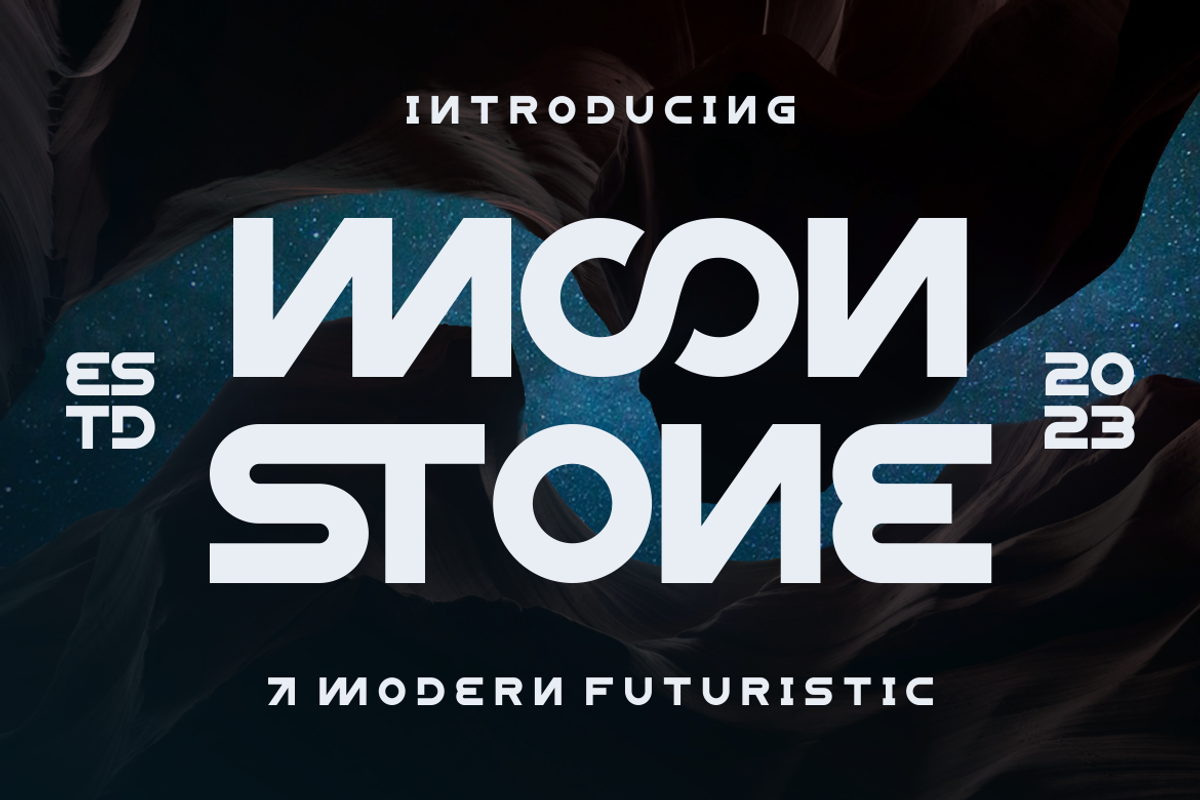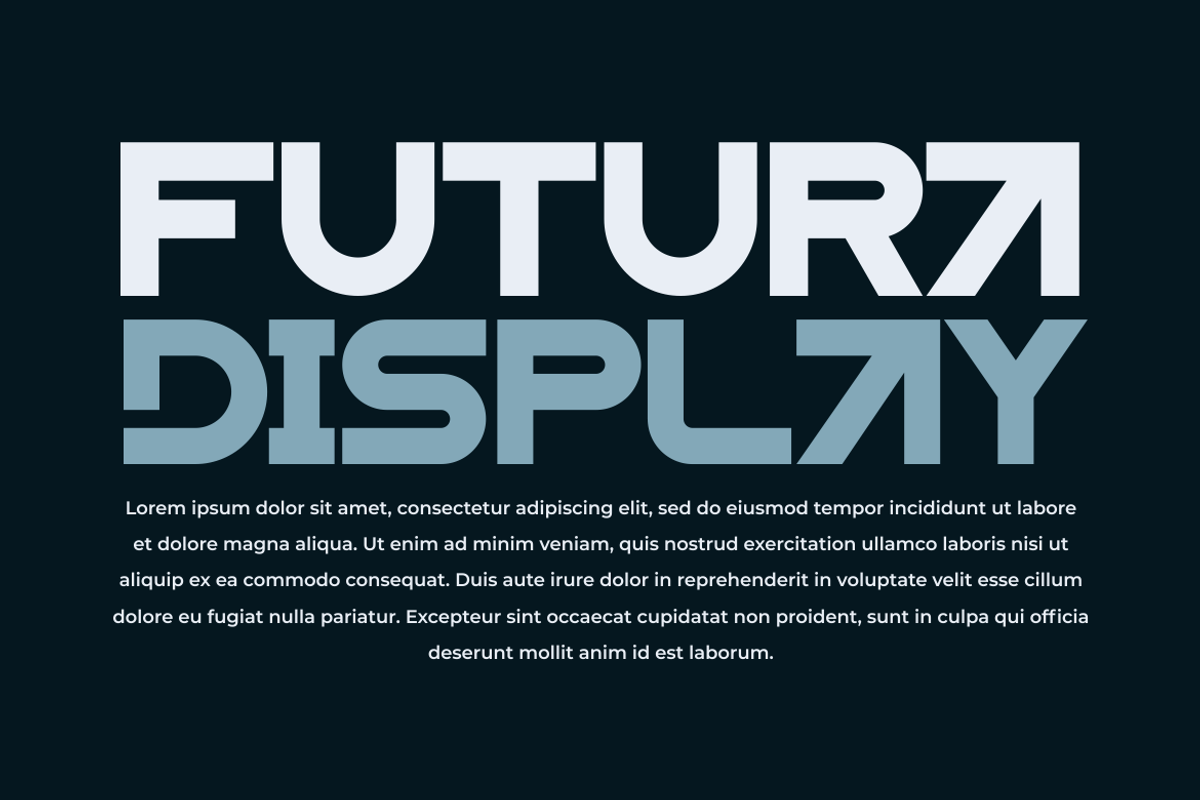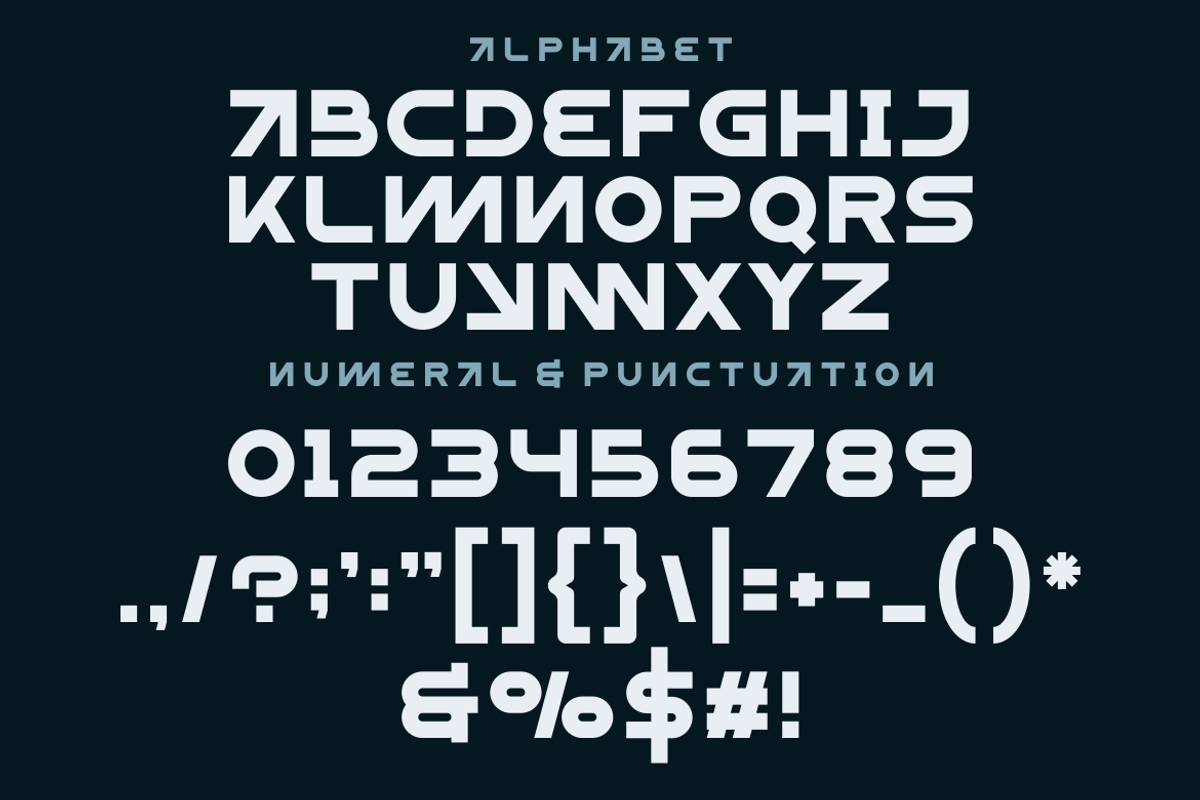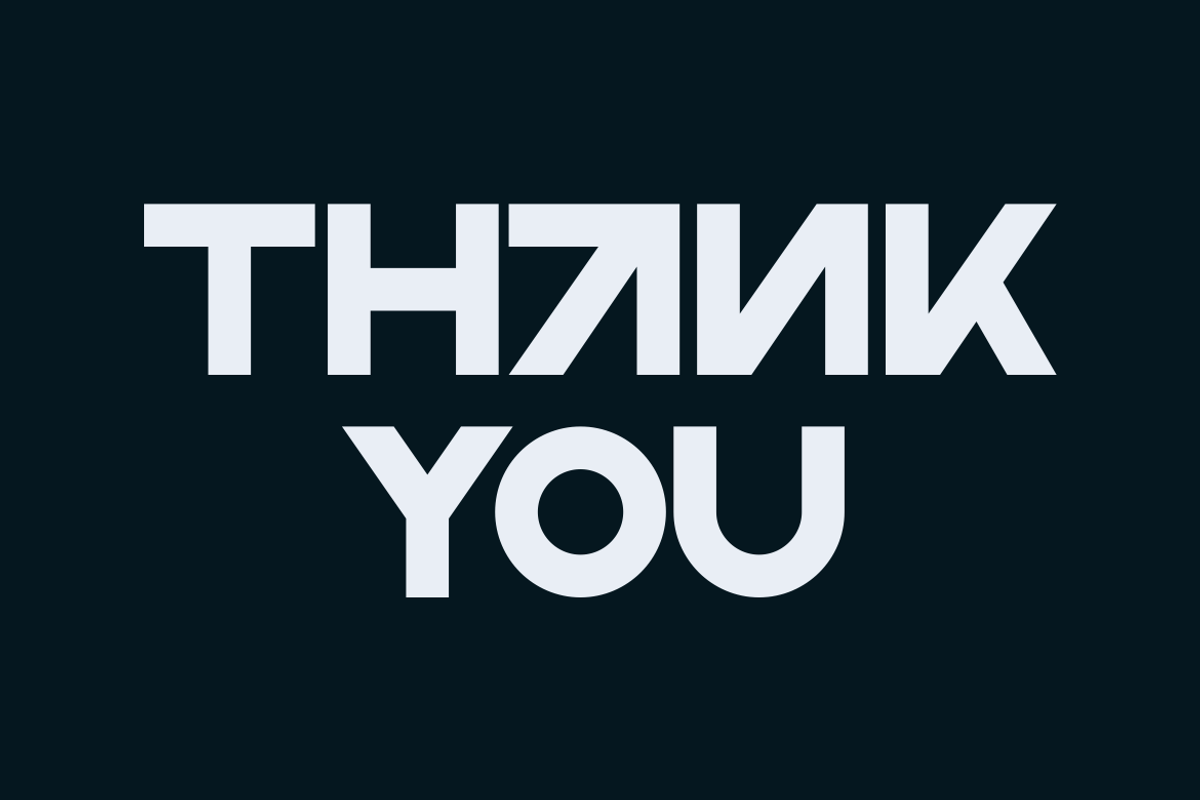
Moonstone - Modern Techno Font
Introducing our new product Moonstone - Modern Techno Font
Moonstone - Modern Techno Font is a bold and authentic display font. The font is suitable for any branding project like logo, t-shirt printing, product, esport, and many more. outstanding in a wide range of contexts.